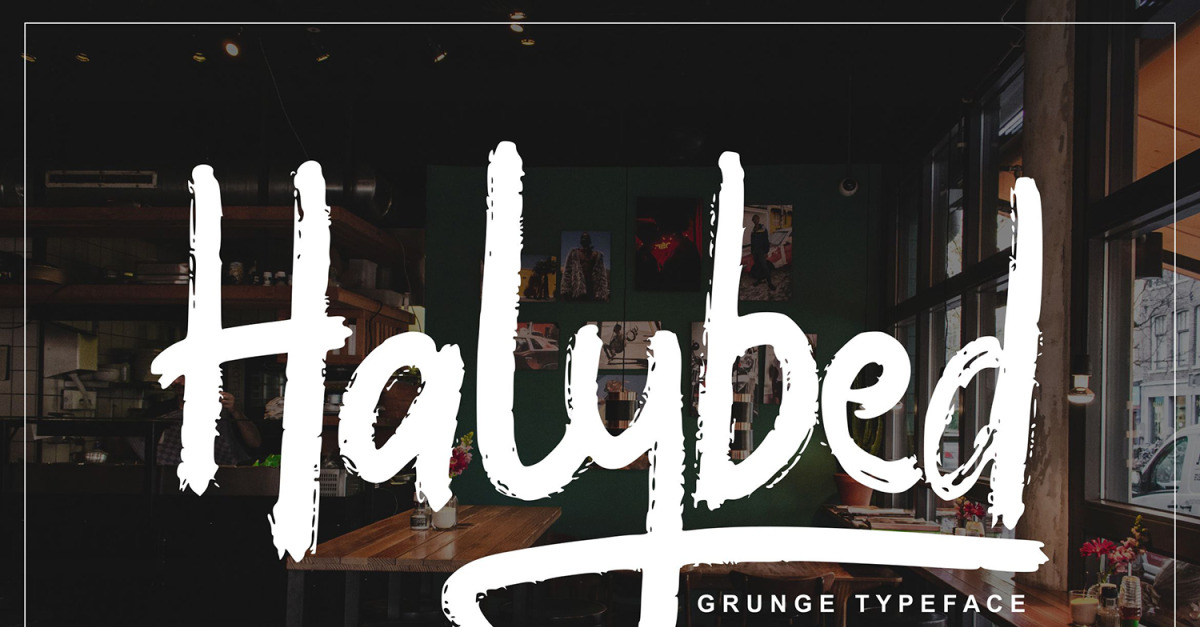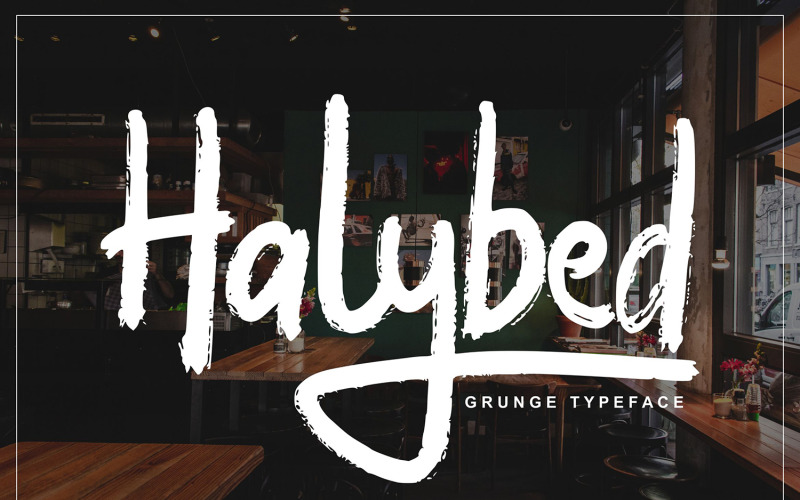
Halybed | Grunge Typeface Font
**Halybed | Grunge Typeface Font** with a calligraphy style, So beautiful on invitation like greeting cards, branding materials, business cards, quotes, posters, and more!